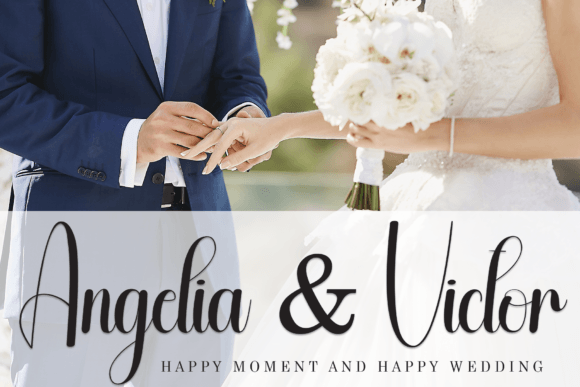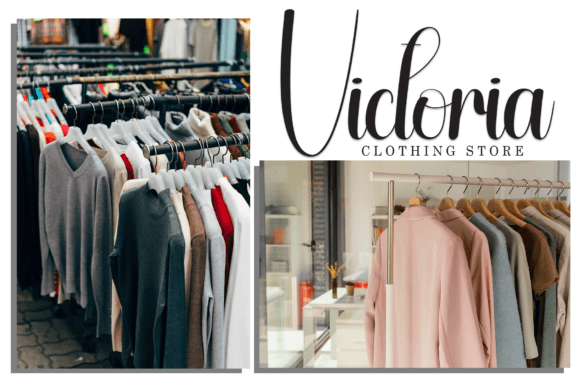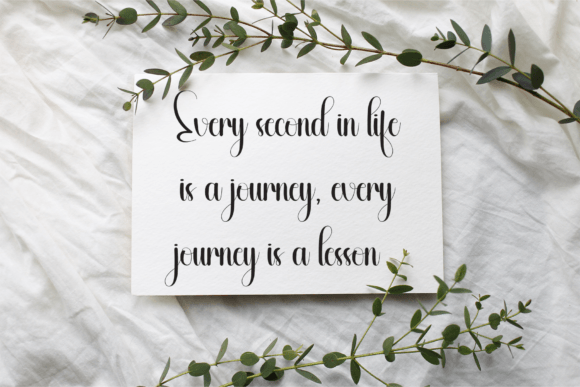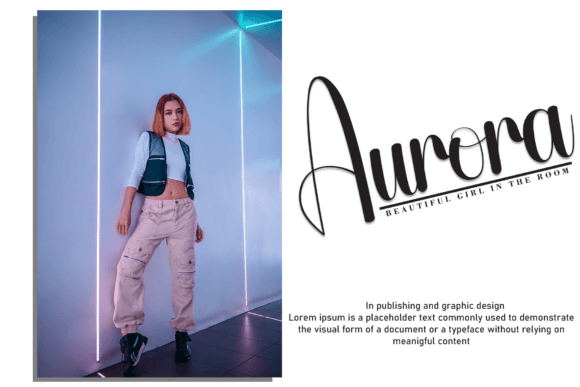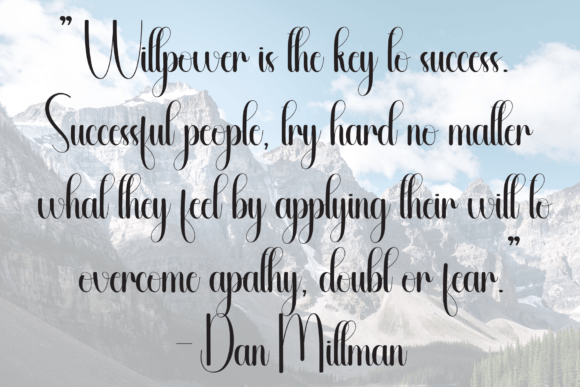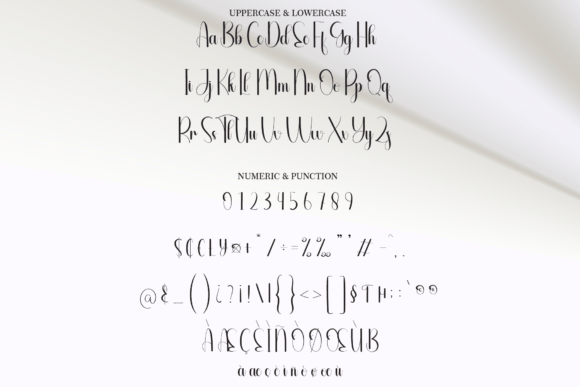
Introducing Blancing Font: The Sweet and Friendly Handwritten Font for Your Creative Projects
Are you a designer or crafter looking for a font that can add a touch of warmth and personality to your creative projects? Look no further than Blancing Font! This sweet and friendly handwritten font is perfect for writing wedding invitations, cards, or any other design that might need a fun touch. In this article, we’ll take a closer look at Blancing Font and explore its features, benefits, and uses.
What is Blancing Font?
Blancing Font is a beautiful handwritten font that exudes a sense of friendliness and approachability. Its cute and fun design makes it ideal for projects that require a personal touch. Whether you’re designing a wedding invitation, a greeting card, or a social media graphic, Blancing Font is sure to bring a smile to your audience’s face.
Key Features of Blancing Font
- Handwritten design: Blancing Font has a unique, handwritten design that gives it a personal and relatable feel.
- Cute and fun: The font’s playful design makes it perfect for projects that require a lighthearted and cheerful touch.
- Versatile: Blancing Font can be used for a wide range of projects, from wedding invitations to social media graphics.
- Easy to read: Despite its playful design, Blancing Font is easy to read and understand, making it perfect for body text and headlines.
Benefits of Using Blancing Font
So why should you choose Blancing Font for your creative projects? Here are just a few benefits of using this amazing font:
- Adds a personal touch: Blancing Font’s handwritten design gives your projects a personal and relatable feel that resonates with your audience.
- Creates a fun and playful atmosphere: The font’s cute and fun design makes it perfect for projects that require a lighthearted and cheerful touch.
- Perfect for creative projects: Blancing Font is ideal for designers, crafters, and DIY enthusiasts who want to add a touch of personality to their projects.
Uses of Blancing Font
Blancing Font is a versatile font that can be used for a wide range of creative projects, including:
- Wedding invitations: Add a touch of romance and whimsy to your wedding invitations with Blancing Font.
- Greeting cards: Use Blancing Font to create fun and playful greeting cards for birthdays, holidays, and other special occasions.
- Social media graphics: Add a personal touch to your social media graphics with Blancing Font.
- DIY projects: Use Blancing Font to add a touch of personality to your DIY projects, such as scrapbooking, crafting, and more.
Tips for Using Blancing Font
Here are a few tips for using Blancing Font effectively in your creative projects:
- Pair with other fonts: Experiment with pairing Blancing Font with other fonts to create a unique and interesting design.
- Use for headlines and body text: Blancing Font is easy to read, making it perfect for both headlines and body text.
- Add embellishments: Consider adding embellishments, such as flowers or other graphics, to enhance the font’s playful design.
Blancing Font is a sweet and friendly handwritten font that’s perfect for designers, crafters, and DIY enthusiasts who want to add a touch of personality to their creative projects. With its cute and fun design, versatility, and ease of use, Blancing Font is sure to become a favorite in your font collection. So why wait? Download Blancing Font today and start creating beautiful, fun, and playful designs that will delight your audience!